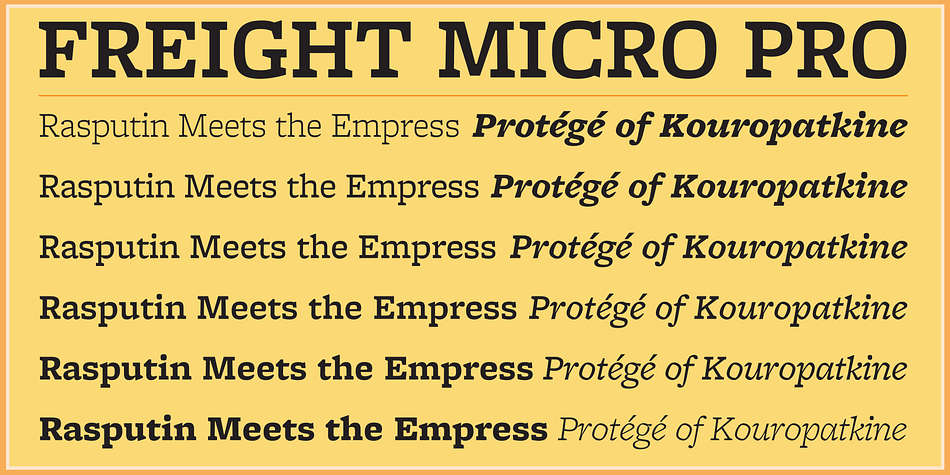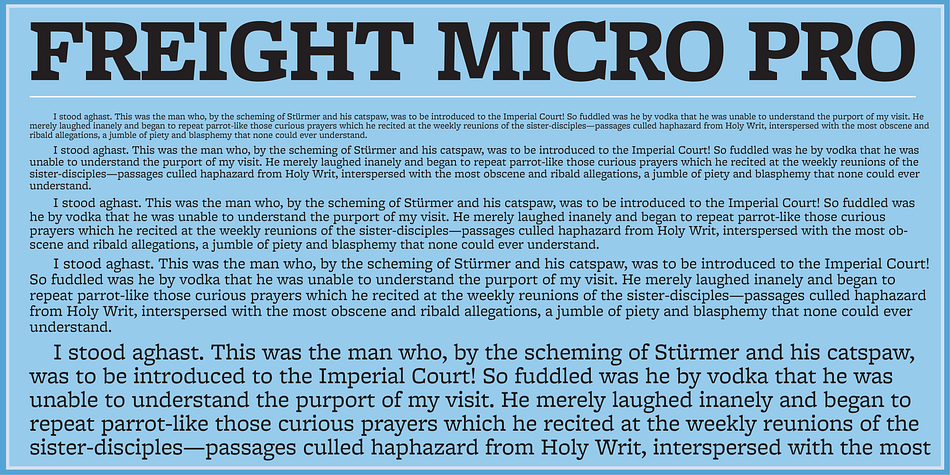
Designed by Joshua Darden, Freight Micro Pro is a slab serif font family. This typeface has twelve styles and was published by Freight Collection.
A slab-serif Micro series for inclement text conditions onscreen and in print. (We think it looks pretty spiffy set big, too!)